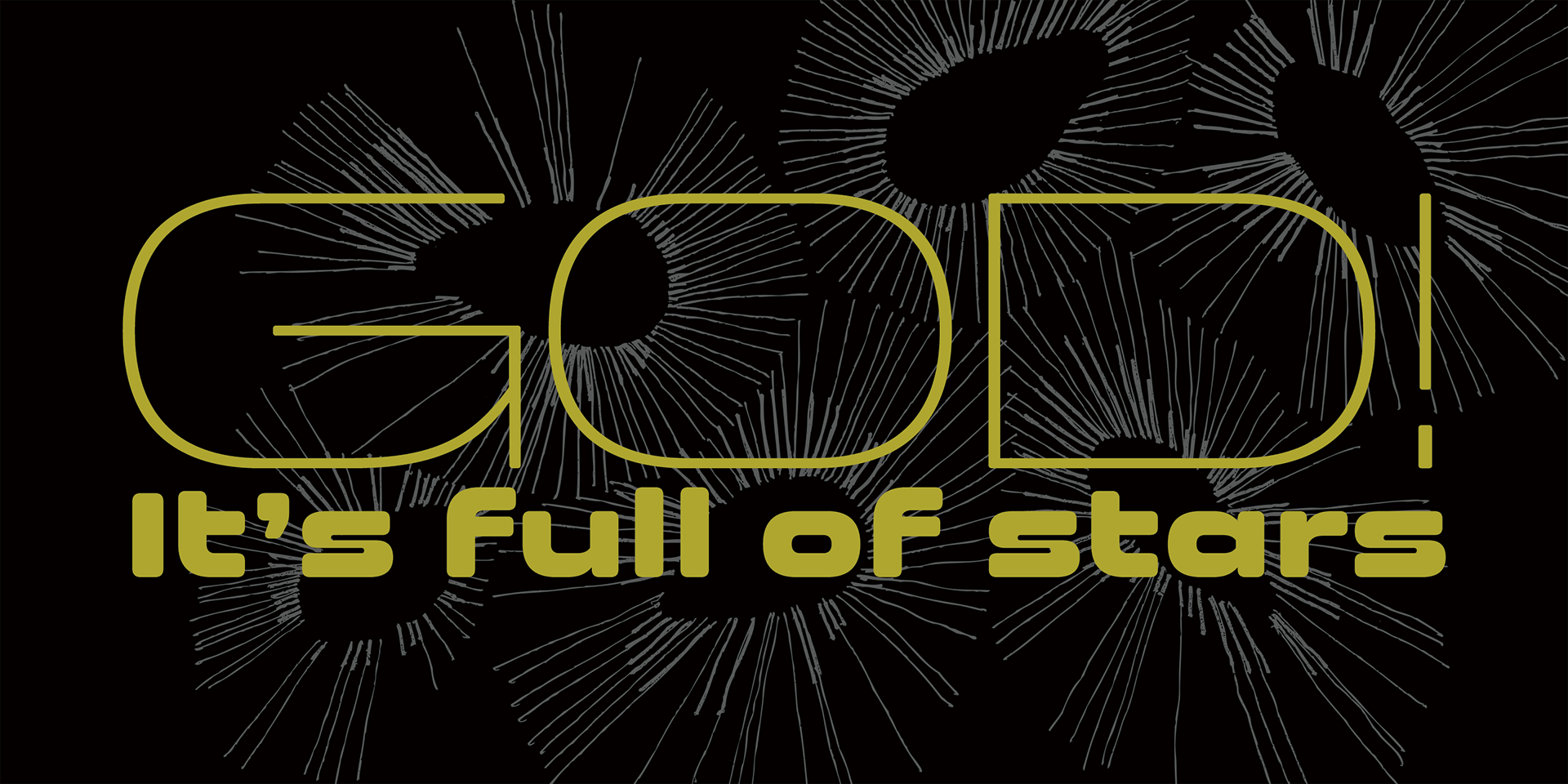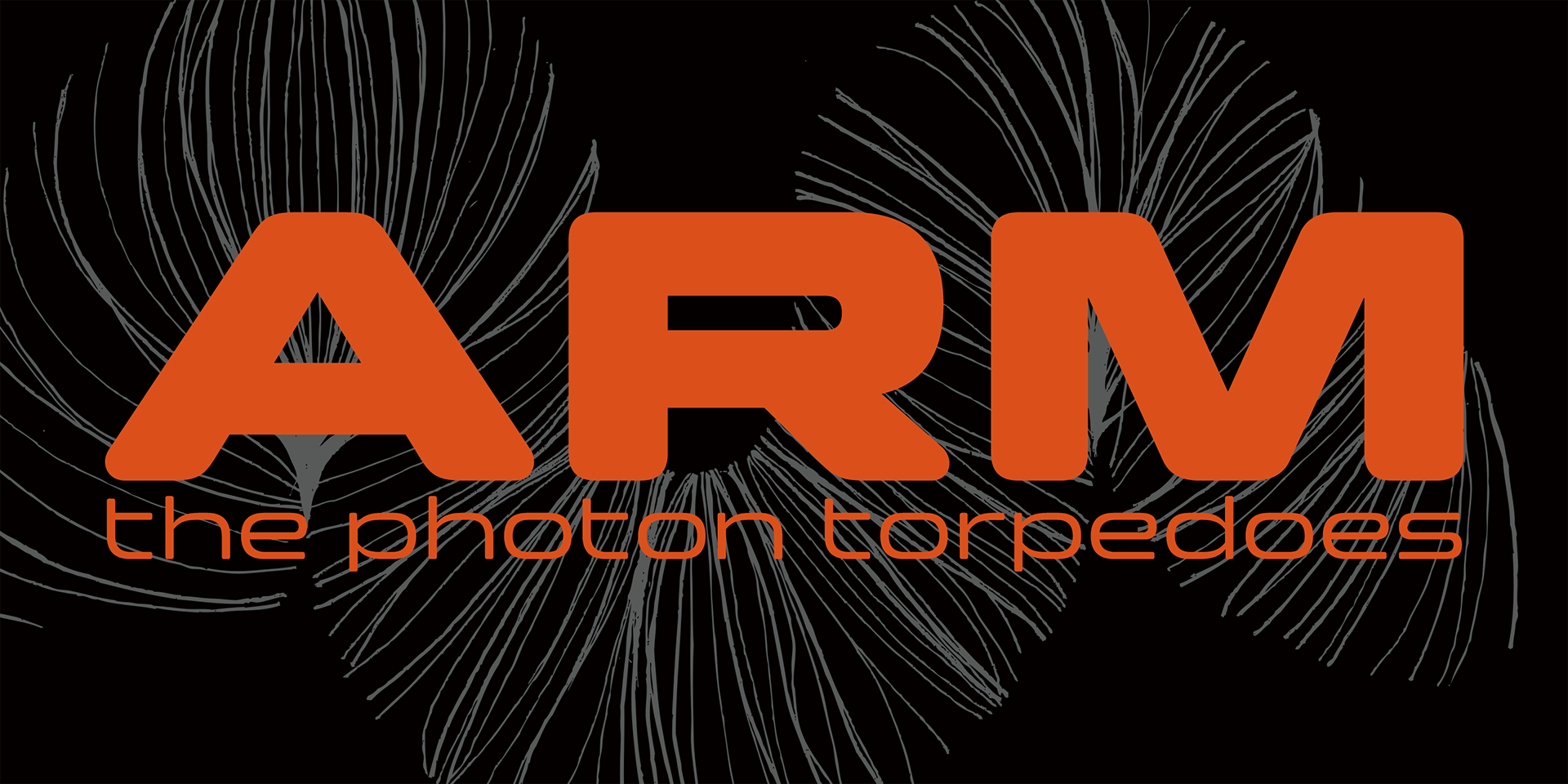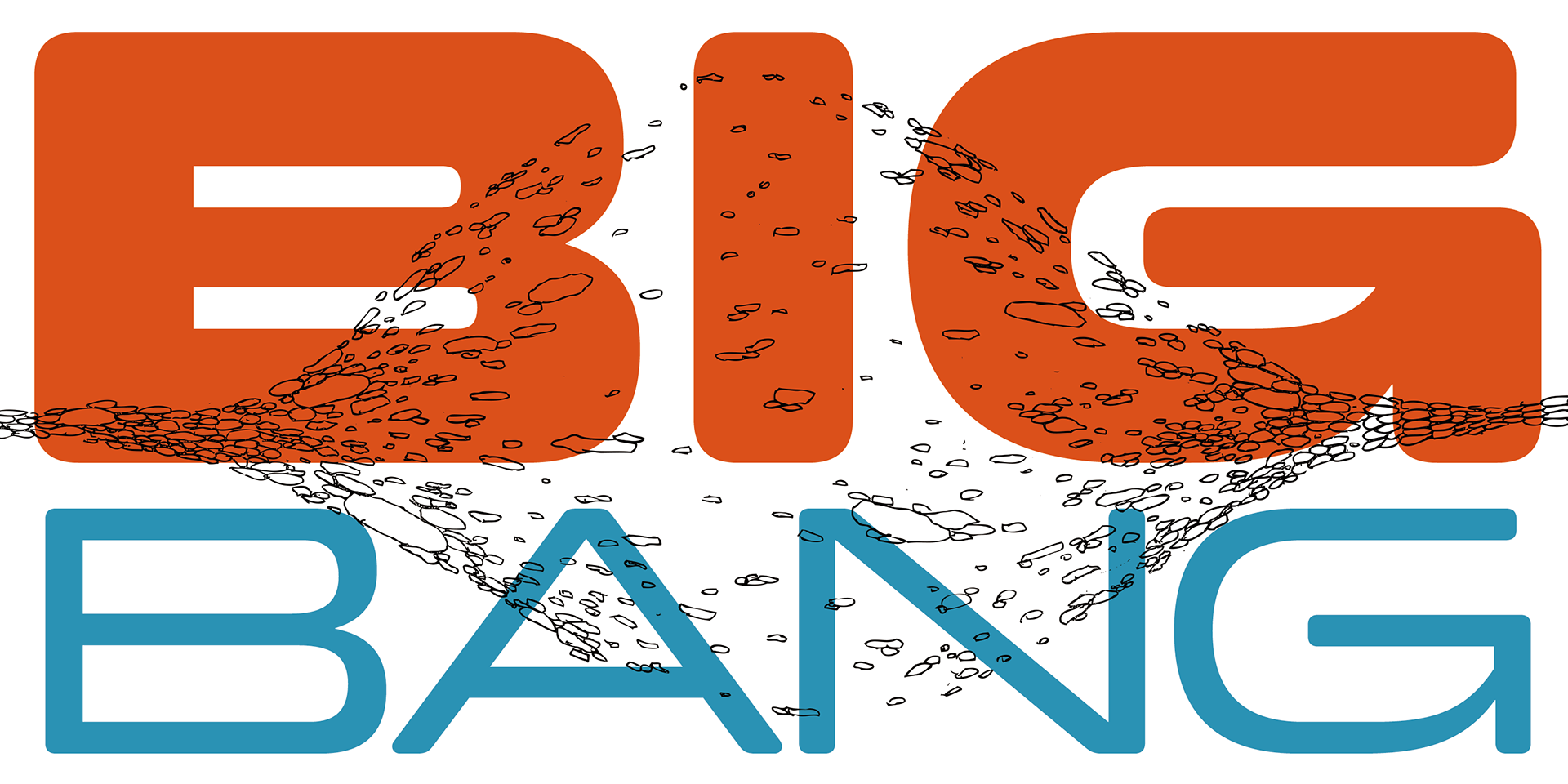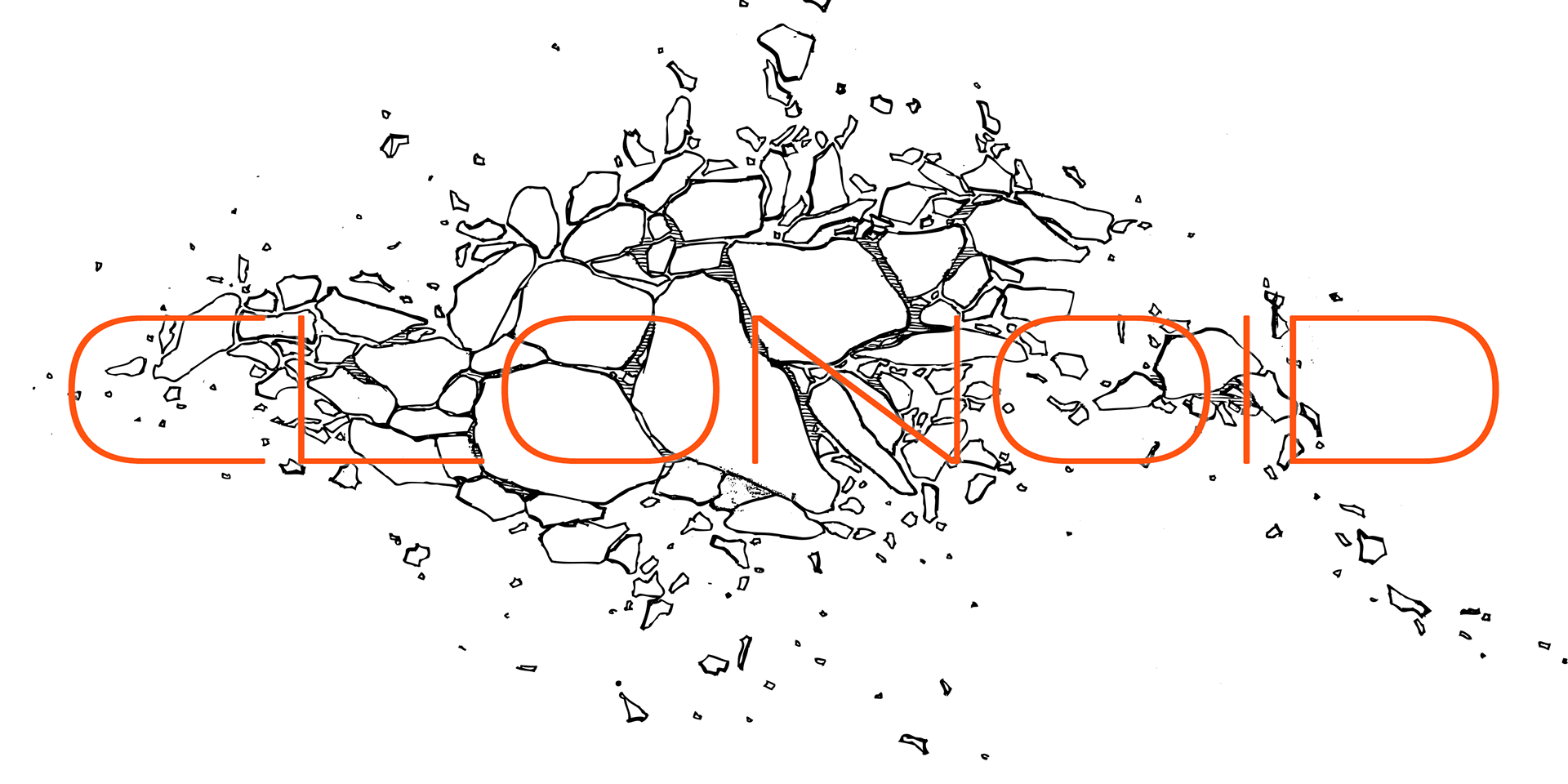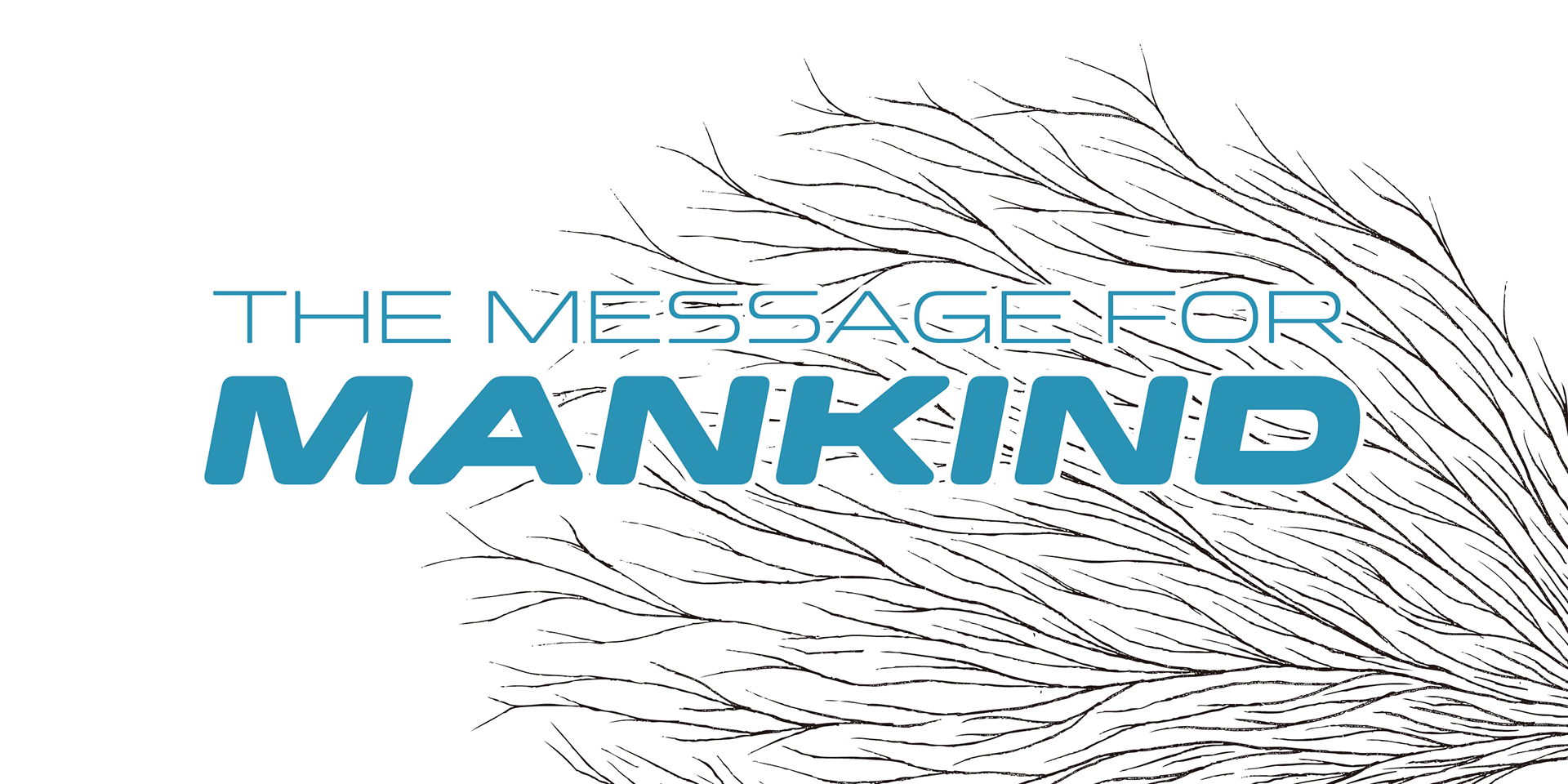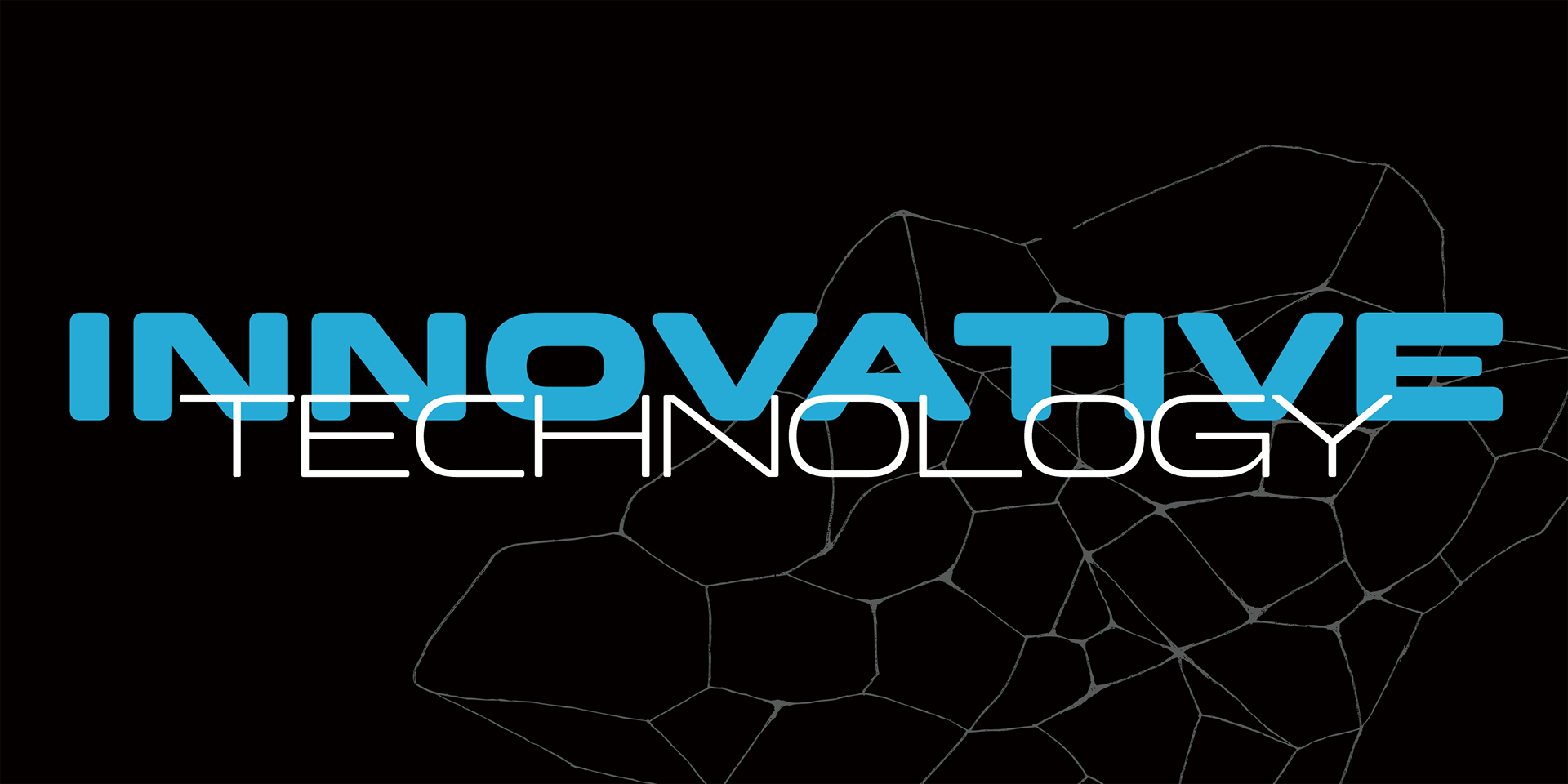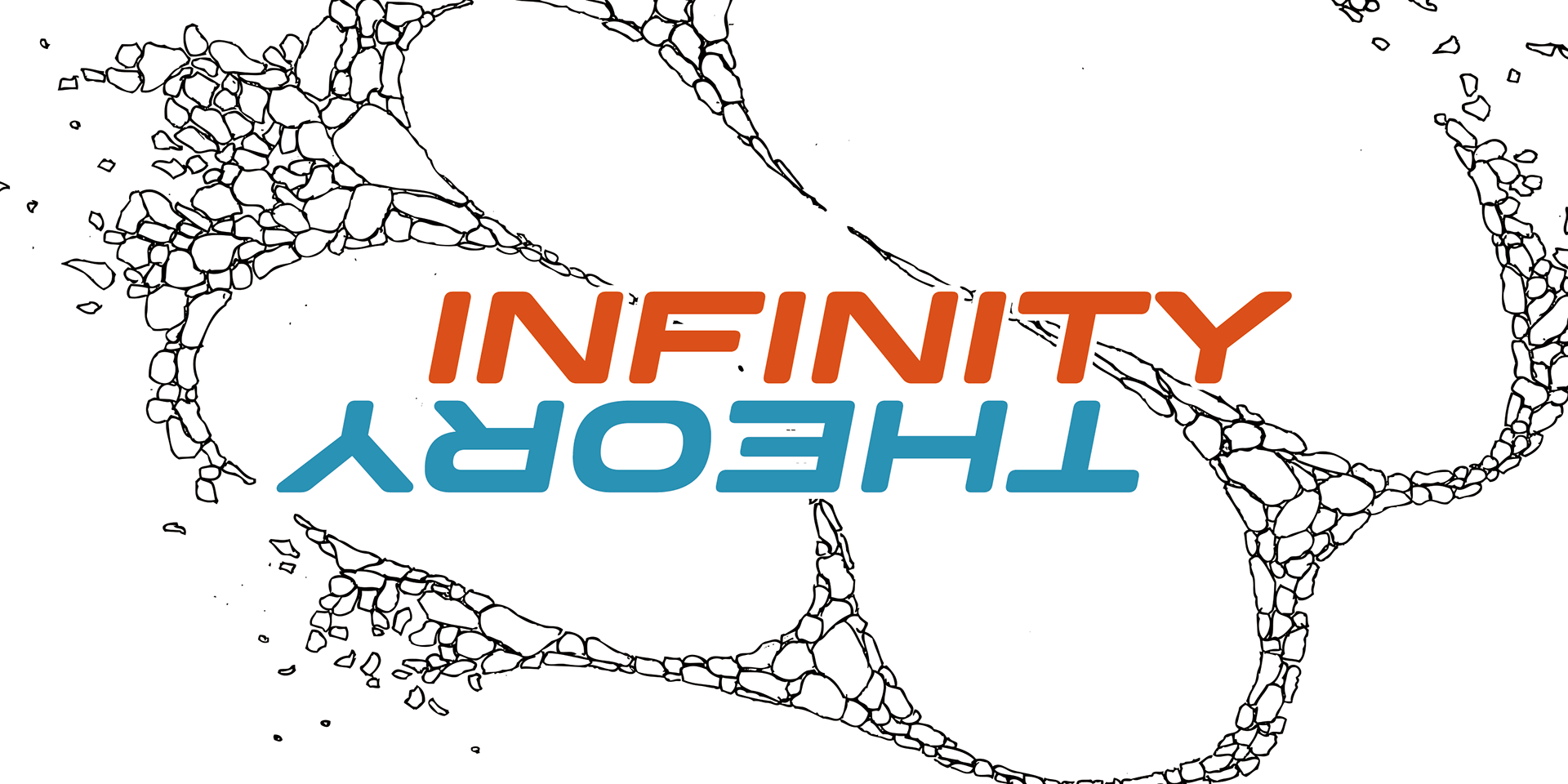
Clonoid
Clonoid is a typeface inspired by and paying tribute to arcade game logos from the 1980s and 1990s.
Its geometric framework evokes a futuristic, sci-fi, and mechanical feel, while rounded bowls and semi-rounded edges add a natural, soft touch, balancing precision with warmth.
With its clean, orthodox letterforms, Clonoid is versatile enough for a wide range of applications, from tech-inspired designs to everyday use.